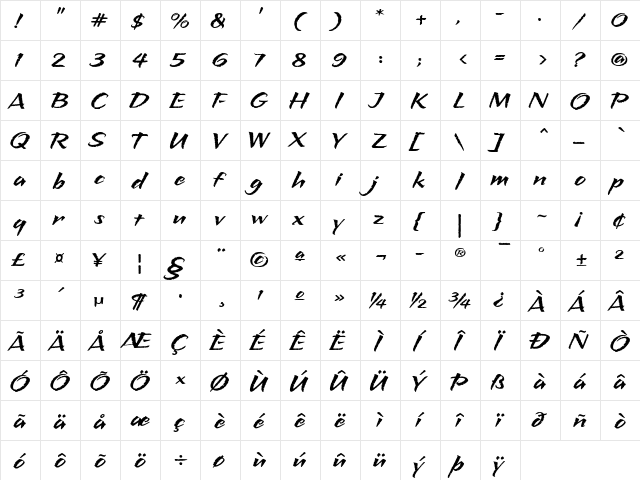
Puamana ITC Regular Font Preview
Puamana ITC Regular
Puamana ITC Regular Font Details
| Designer | Teri M. Kahan |
Design Context for Puamana ITC Typeface
Puamana ITC is a composed and adaptable typeface that performs quietly and consistently across a wide range of design contexts.